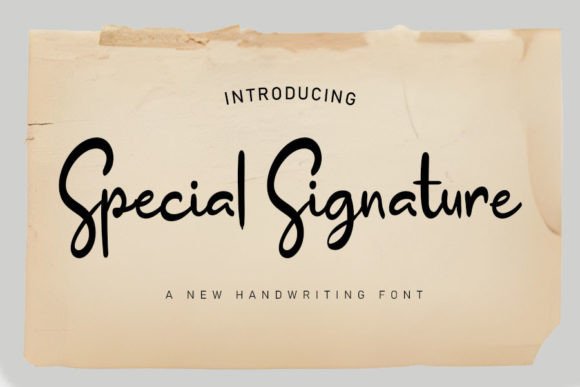
Unleash your creativity and let your imagination take flight with Special Signature Font. This captivating script font, meticulously crafted by Snowman Studio, is a symphony of elegance and charm. Whether you're designing a captivating book cover, creating heartfelt greeting cards, or crafting enchanting headlines, Special Signature promises to transform your words into works of art.
Immerse yourself in a world of endless possibilities with Special Signature. Its graceful strokes and sweeping curves add a touch of romance and sophistication to any project. This versatile font shines in both digital and print media, making it the perfect choice for any creative endeavor.
Imagine the allure of your book cover, adorned with the enchanting letters of Special Signature. Its unique style grabs attention and invites readers to dive into the depths of your story. The font's delicate details and flowing lines create an emotional connection, leaving a lasting impression on your audience.
Special Signature's versatility extends beyond book covers. Its charm shines through in greeting cards, adding warmth and sincerity to your heartfelt messages. Let your loved ones feel the embrace of your affection as they read your words, beautifully rendered in this elegant font.
The impact of Special Signature isn't limited to personal projects. Its captivating style elevates headlines, making them impossible to ignore. Whether you're crafting captivating advertisements, designing eye-catching posters, or creating impactful social media posts, Special Signature guarantees to command attention and leave a lasting impression.